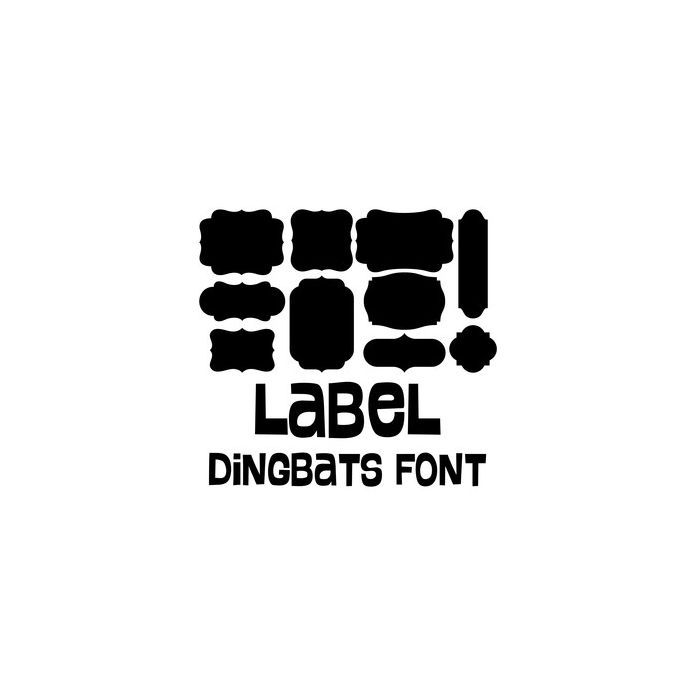
This cute dingbat font includes 26 label icons that you can type + cut. Make adorable label projects quickly and easily with this fun font. For ideas and inspiration visit www.loriwhitlock.com and www.facebook.com/lori.whitlock.studio. For Lori's video tutorials visit www.youtube.com/loriwhitlock. For a full tutorials list visit www.loriwhitlock.com/blog/tutorials.